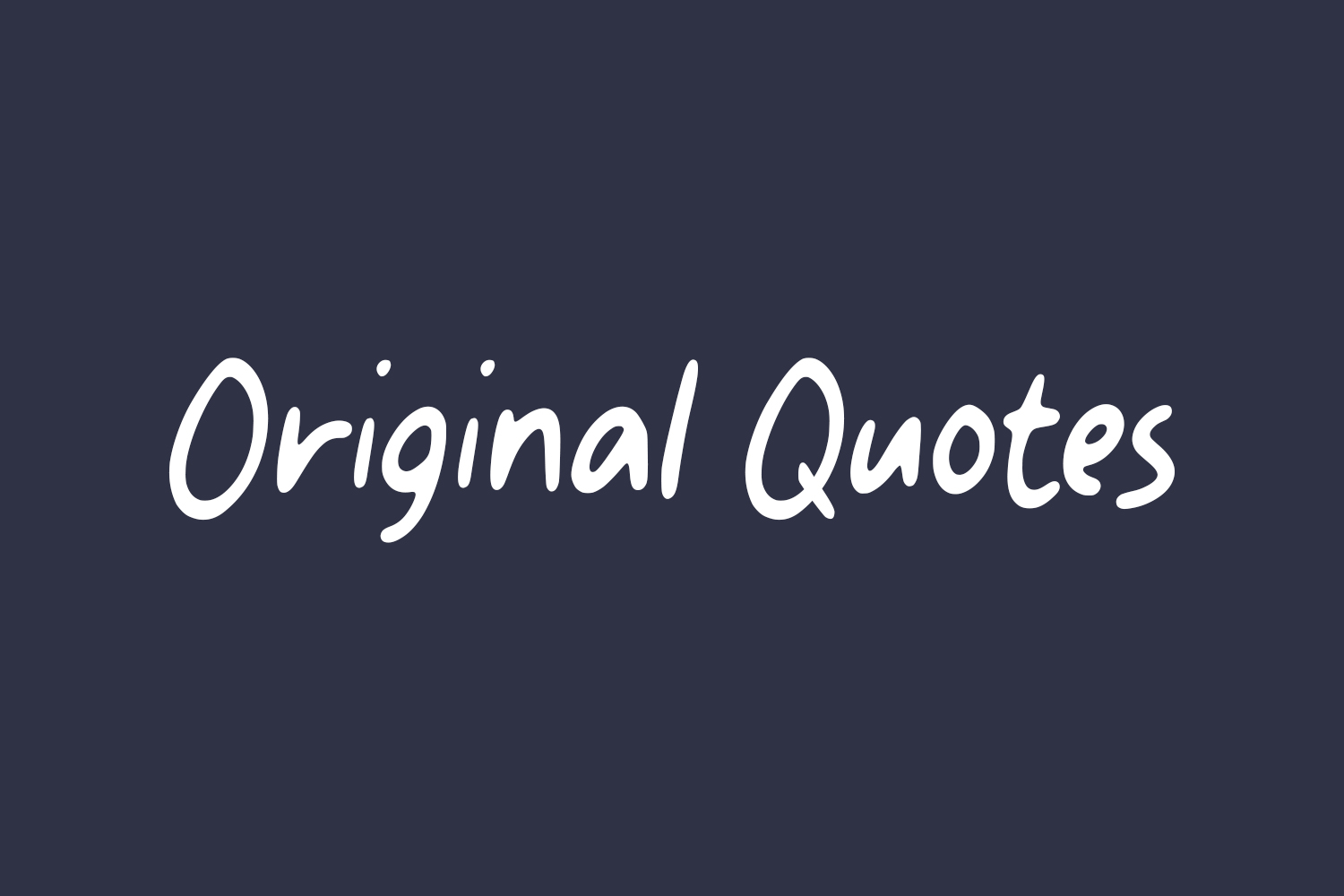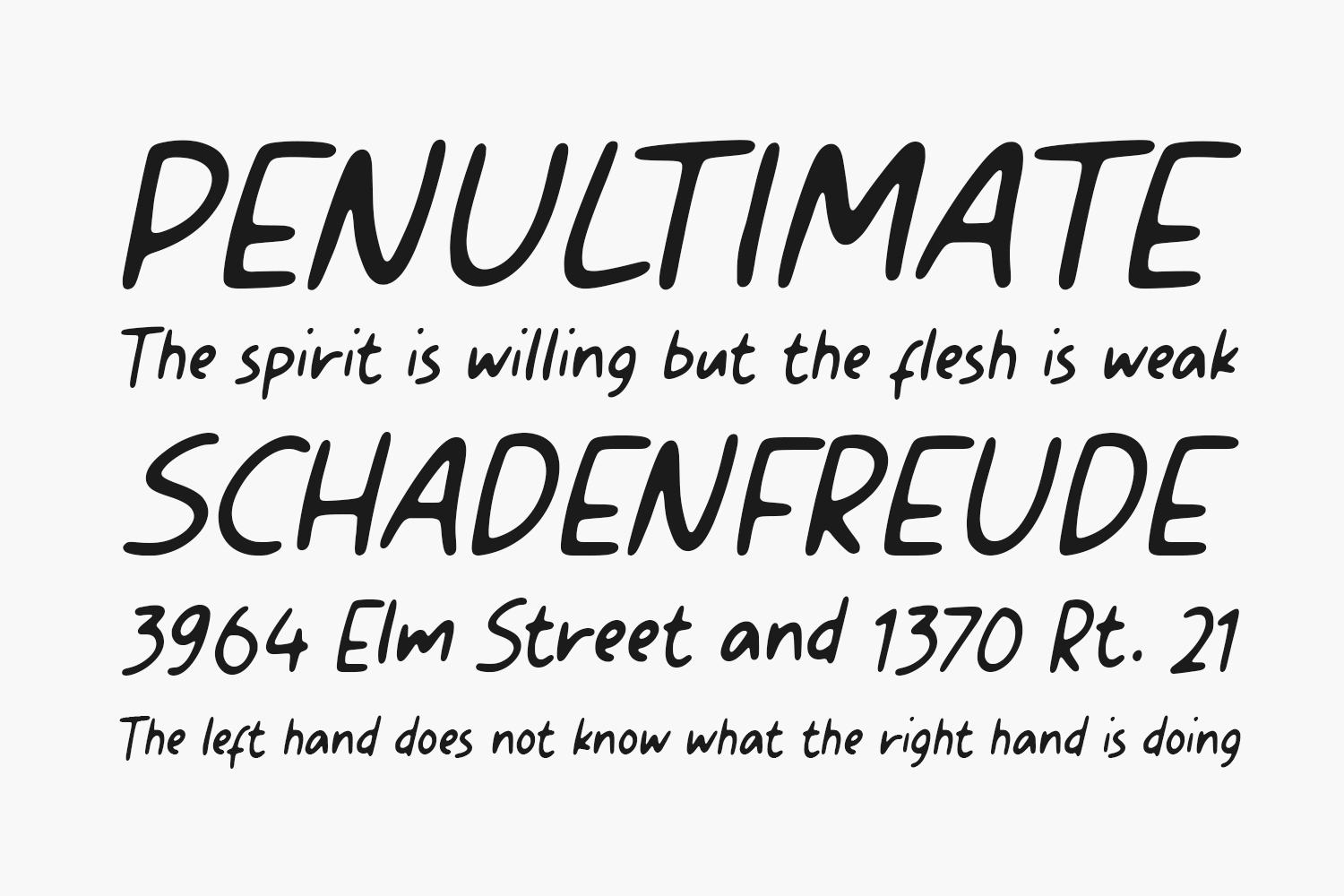
Discover Original Quotes Free Font – a delightful and informal hand-drawn font. With its versatile and playful flair, this font is an ideal choice for a diverse range of creative concepts. Original Quotes Free Font is free for personal use only. Please purchase the full version for commercial use.
Designed by Balpirick Studio